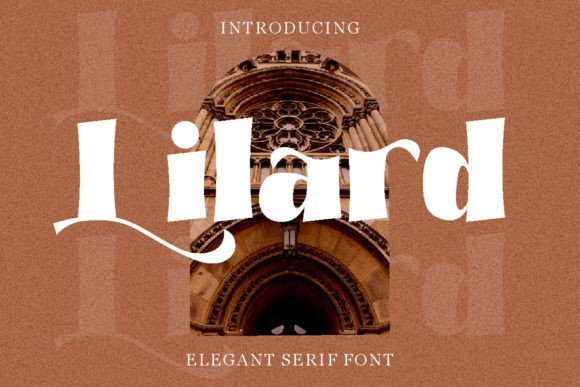
Step into the realm of elegance and sophistication with Lilard – Elegant Serif Font, a masterpiece crafted by putracetol to captivate your imagination. This stunning font embodies the essence of timeless beauty, seamlessly blending classicism with a modern twist.
With its graceful curves and sharp serifs, Lilard transcends the boundaries of ordinary typography, elevating your designs to new heights of refinement. Experience the allure of a font that dances across the page, captivating the eyes with its intricate details and undeniable charm.
Imagine your words adorned with the elegance of Lilard, transforming ordinary text into a symphony of visual delight. This font ignites the senses, evoking emotions, and creating a lasting impression upon the beholder. Let your designs radiate sophistication, whether you're crafting wedding invitations, business cards, or high-end print materials.
Lilard's versatility extends beyond the printed page, seamlessly adapting to the digital realm. It graces websites, social media posts, and digital marketing materials, adding a touch of sophistication to your online presence. Watch as your brand's message resonates with audiences, drawn to the allure of Lilard's timeless beauty.
Join the ranks of discerning designers and tastemakers who have embraced Lilard's timeless appeal. Elevate your projects with a font that embodies elegance, sophistication, and versatility. Let your creativity soar and witness the transformation as Lilard breathes life into your designs.